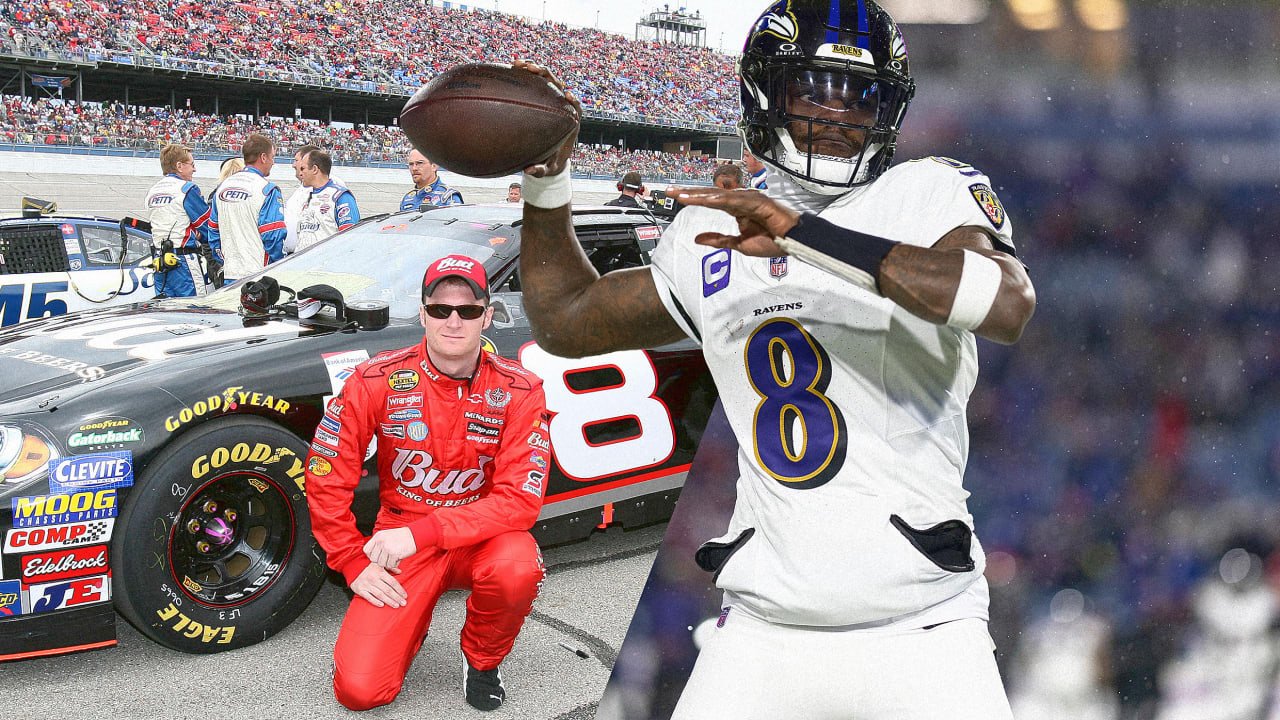
Two famous athletes battled over the number 8. A font helped them call a truce
A dispute between a pair of pro athletes who both use the number 8 has been resolved, thanks to a change in font.
Former NASCAR driver Dale Earnhardt Jr. said Friday his NASCAR team, JR Motorsports, had secured the rights to a stylized 8 mark through the U.S. Patent and Trademark Office (USPTO). The announcement came after attorneys for quarterback Lamar Jackson, who wears the No. 8 jersey for the Baltimore Ravens, filed a notice of opposition with the USPTO over JR Motorsports’s trademark claim to the mark, arguing it “falsely suggests a connection” with Jackson.
Earnhardt and his team have raced before as No. 8; and in 2019, when the team got the No. 8 car, he said the number was “very special to me and to JR nation. There’s a lot of history with the No. 8 in my family and in NASCAR. It’s time to write some new stories and continue to add to the number’s rich heritage,” according to Autoweek.
But the number also means something to Jackson, who played with a No. 8 jersey at the University of Louisville, which the school retired, as well as for the Ravens since being drafted by the team in 2018.
Jackson’s attorneys went after another No. 8 athlete last year, former Dallas Cowboys quarterback Troy Aikman. At the time, Aikman joked in a post on X, “Hey Lamar—Looks like a worthy conversation over a couple cold EIGHT beers! Maybe Steve Young can arbitrate??” (Aikman was referring to his beer brand Eight; and Young, a former San Francisco 49ers No. 8 player.)
Aikman’s joke showed how a single number can refer to multiple well-known athletes simultaneously, potentially watering down the case a single athlete can make to lay absolute claim to a number.
Earnhardt didn’t say much about how the dispute was resolved except that his JR Motorsports team would no longer use the forward-leaning 8 mark that they’ve used since 2019 and instead use a backward-leaning mark that resembles the No. 8 car Earnhardt raced with in the 2000s for Dale Earnhardt Inc., the team founded by his father. The resolution seems to suggest that the styling of a number plays a role in how the public perceives it in connection to specific athletes.
Jackson has proven litigious over the number, but he said in 2021 that he’d change from No. 8 to No. 1 if he ever won a Super Bowl. So if you see Earnhardt, Aikman, Young, and other No. 8 athletes cheering for the Ravens, you might figure out why.